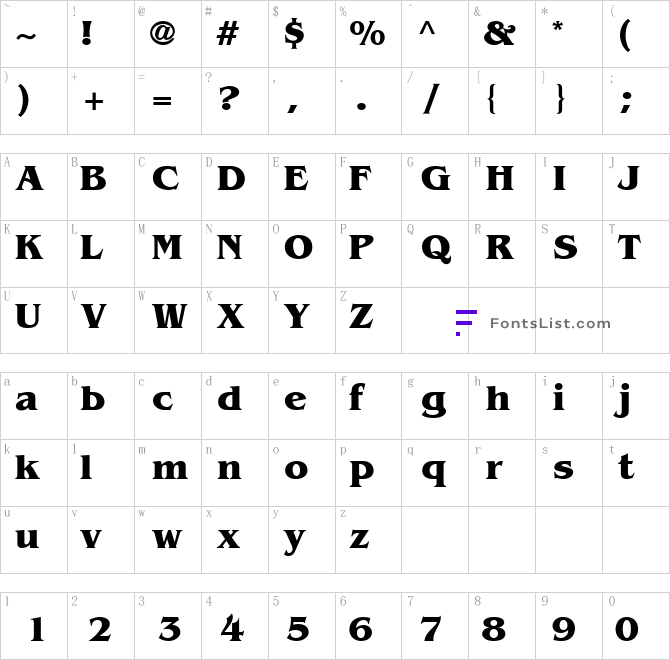
- Font Name:Bangkok
Bangkok-Bold-copy-2-.ttf is a very beautiful artistic font, Bangkok-Bold-copy-2-.ttf is widely used in the design and printing of various books and pictures,Bangkok-Bold-copy-2-.ttf has a strong visual impact,Bangkok-Bold-copy-2-.ttf is a commonly used font in newspapers, magazines and books, and is used in posters, e-commerce Poster design, store design, logo design, font design and other fields.Bangkok-Bold-copy-2-.